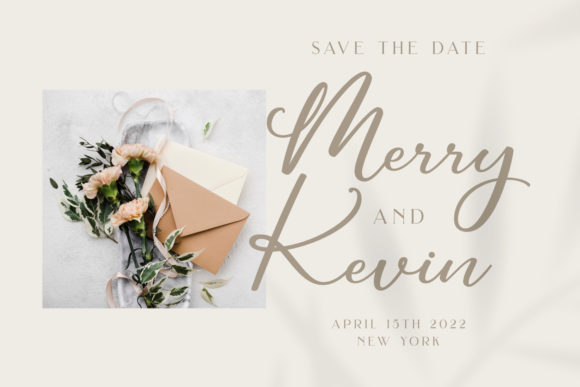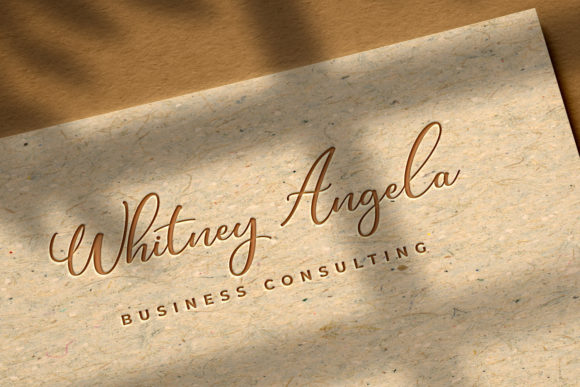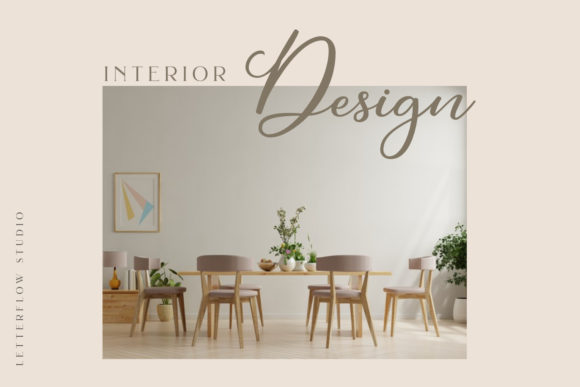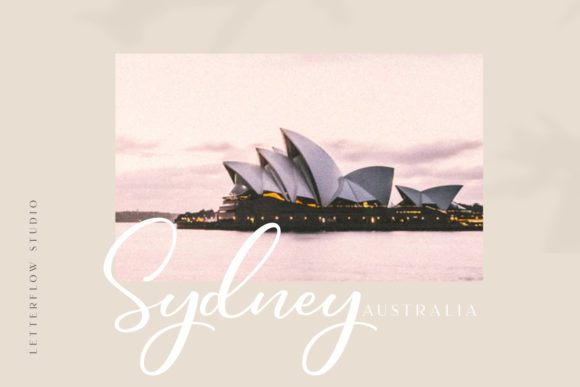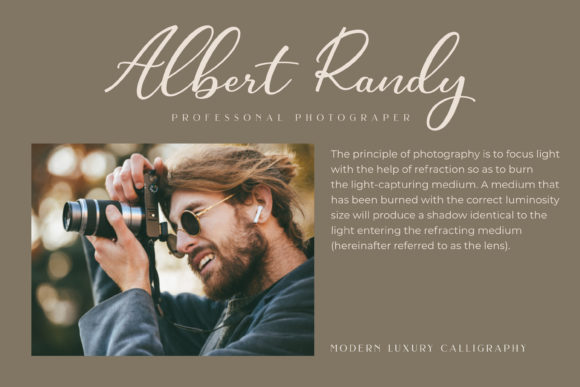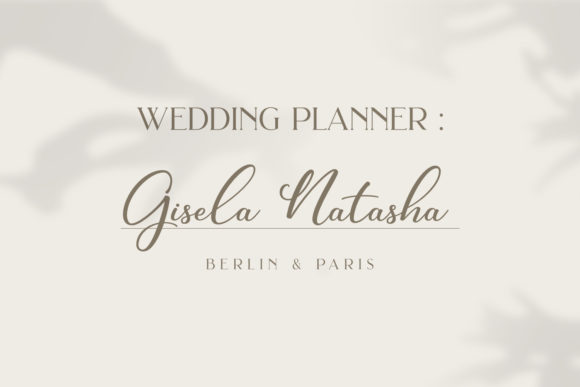
Introduction to Bridney Signature Font
Have you ever stumbled upon the perfect font that makes your design come alive? I recall a moment when I was working on a wedding invitation and I needed a font that would convey the romance and love that the couple felt. That’s when I discovered the enchanting Bridney Signature Font – a handwritten font that has been a game-changer for my design projects.
The Bridney Signature Font is a versatile script font that can be used in a wide range of applications, from greeting cards to headlines, and even on a transparent background to give your design a seamless look. With its high-quality design, this font is a valuable resource for designers who want to add a touch of elegance and sophistication to their creative projects.
Key Features of Bridney Signature Font
- High-quality design resource ideal for creative projects, including logos, branding, and graphics.
- Features a transparent background, allowing for easy integration into various design elements and backgrounds.
- Designed with high-resolution clarity, ensuring crisp and clear typography in both digital and print applications.
- Unique, handcrafted design aesthetic, setting it apart from other fonts and making it a standout choice for creative projects.
Honest Review: Bridney Signature Font
As a designer, I’m always on the lookout for high-quality design resources to elevate my creative projects. I recently had the chance to try out the Bridney Signature Font, and I’m excited to share my honest review.
What works well: ✨ The Bridney Signature Font is a beautiful, elegant script font that’s perfect for adding a touch of sophistication to any design project. The font is highly customizable, with a range of weights and styles to choose from, making it a versatile design resource. I also appreciate that the font is available for free download, making it accessible to designers of all levels.
However, I did encounter a few limitations: ⚠️ The font can be a bit tricky to use on transparent backgrounds, as the letters can sometimes get lost in the background. Additionally, the font doesn’t come with a lot of pre-designed templates or examples, which can make it harder to get started.
Overall, I’m impressed with the Bridney Signature Font, and I think it’s a great addition to any designer’s toolkit. With a little practice and patience, I think you’ll find it’s a high-quality design resource that can help take your creative projects to the next level.
Tips for Getting the Most Out of Bridney Signature Font
For the best results, use the font in combination with a transparent background to create a clean and modern look. Experiment with different font sizes and styles to find the perfect balance for your design. Additionally, consider pairing the font with other high-quality design resources to create a cohesive and professional look.
Bridney Signature Font is perfect for a variety of creative projects, including graphic design, digital art, and even web design. Its unique design makes it ideal for branding and marketing materials, such as business cards, logos, and brochures. With its high-quality design and free download, it’s a must-have design resource for any creative project.